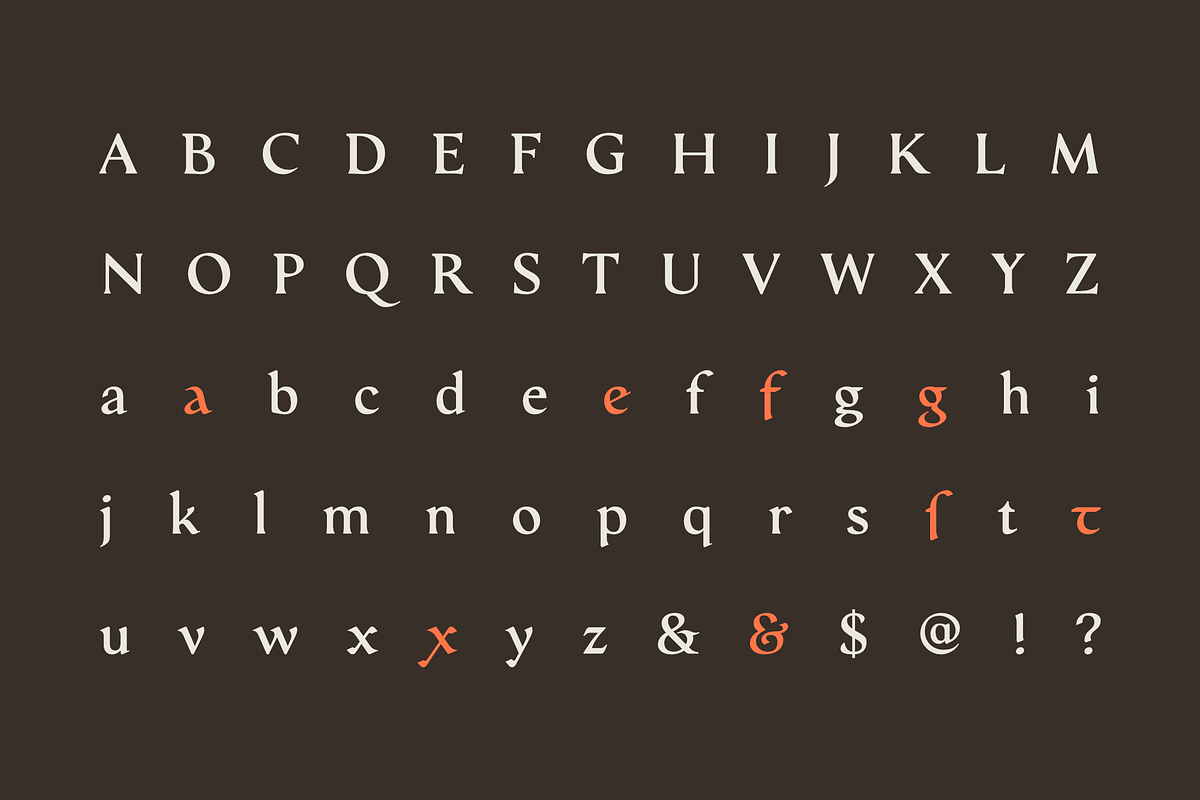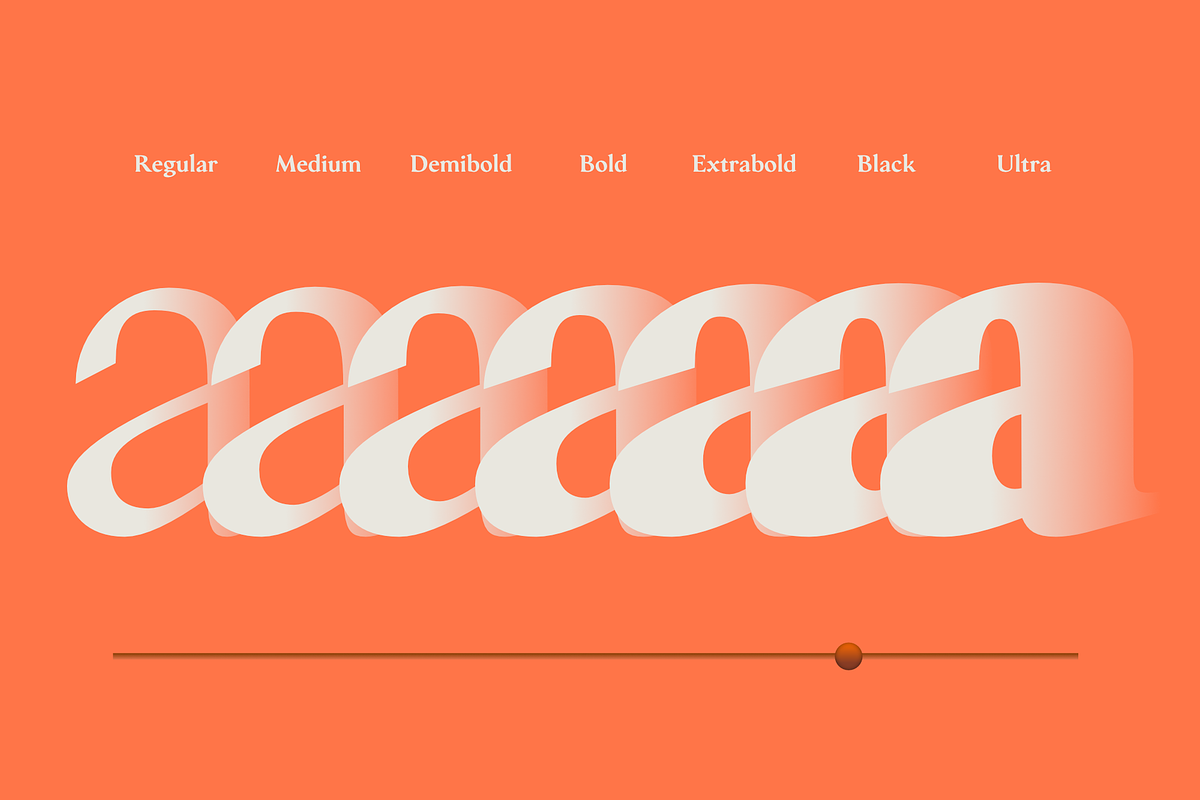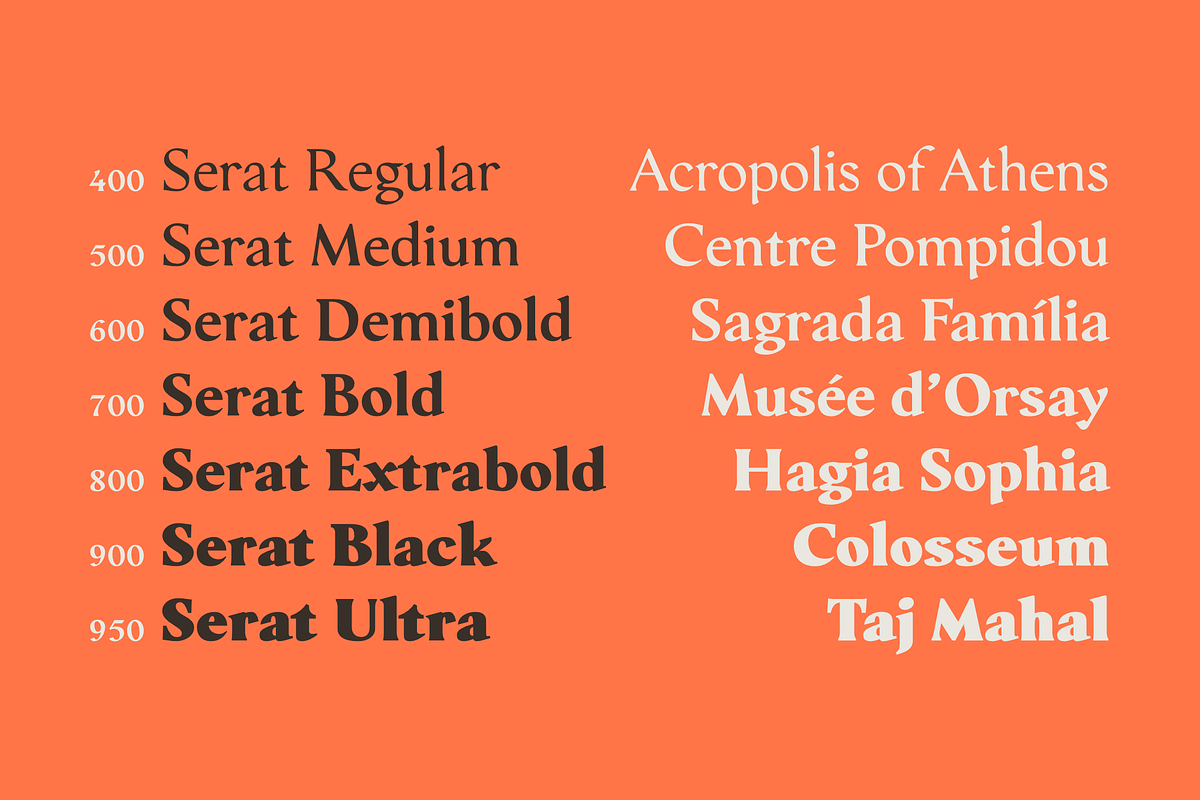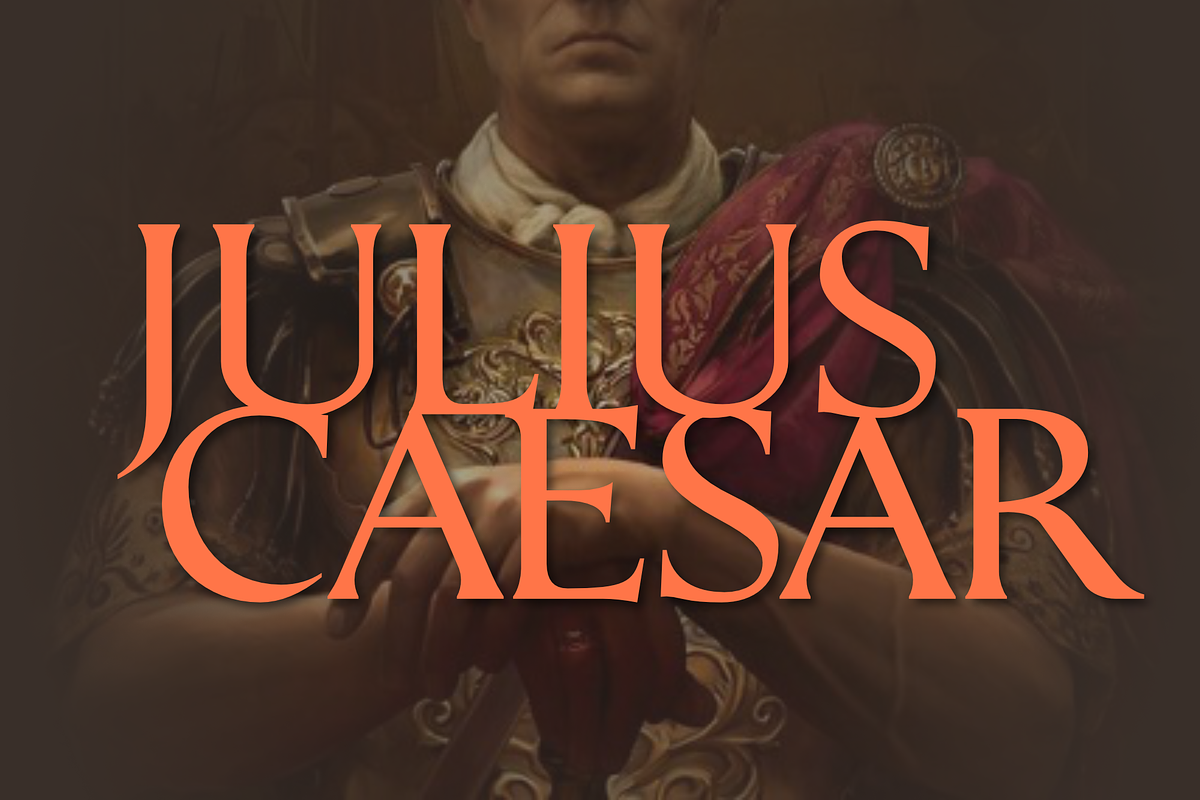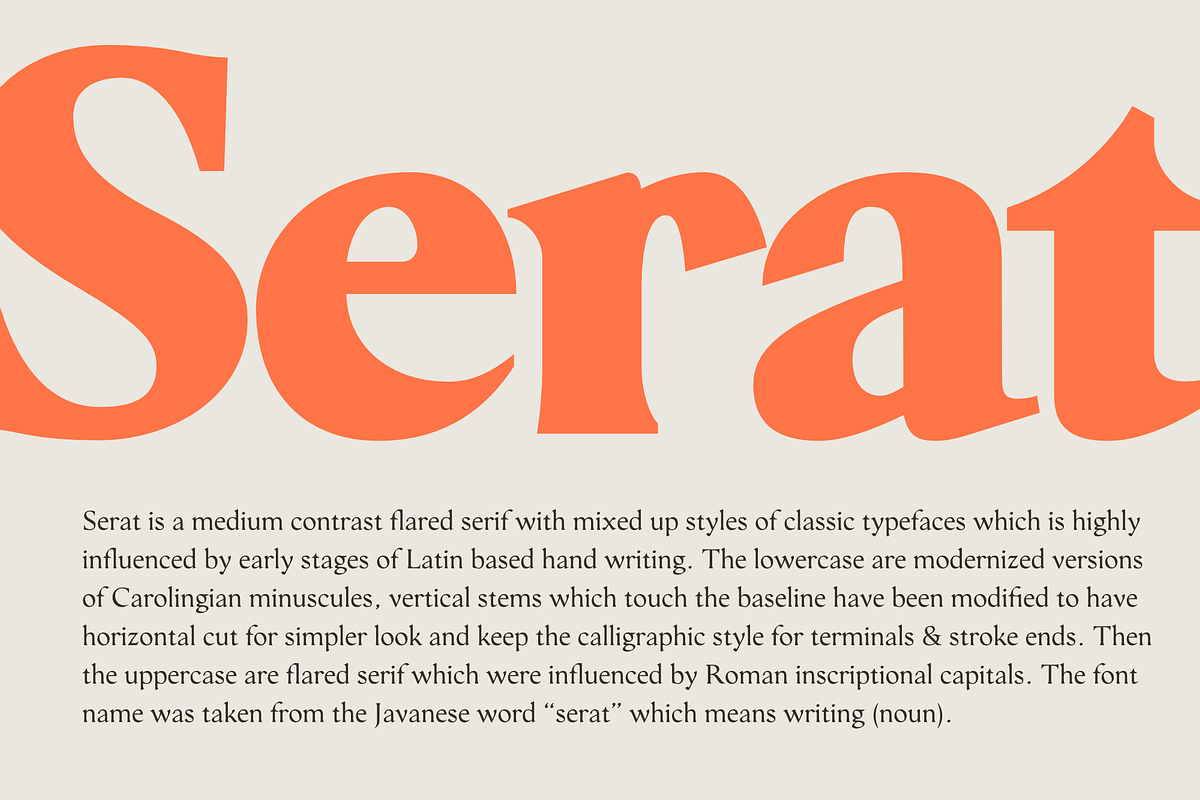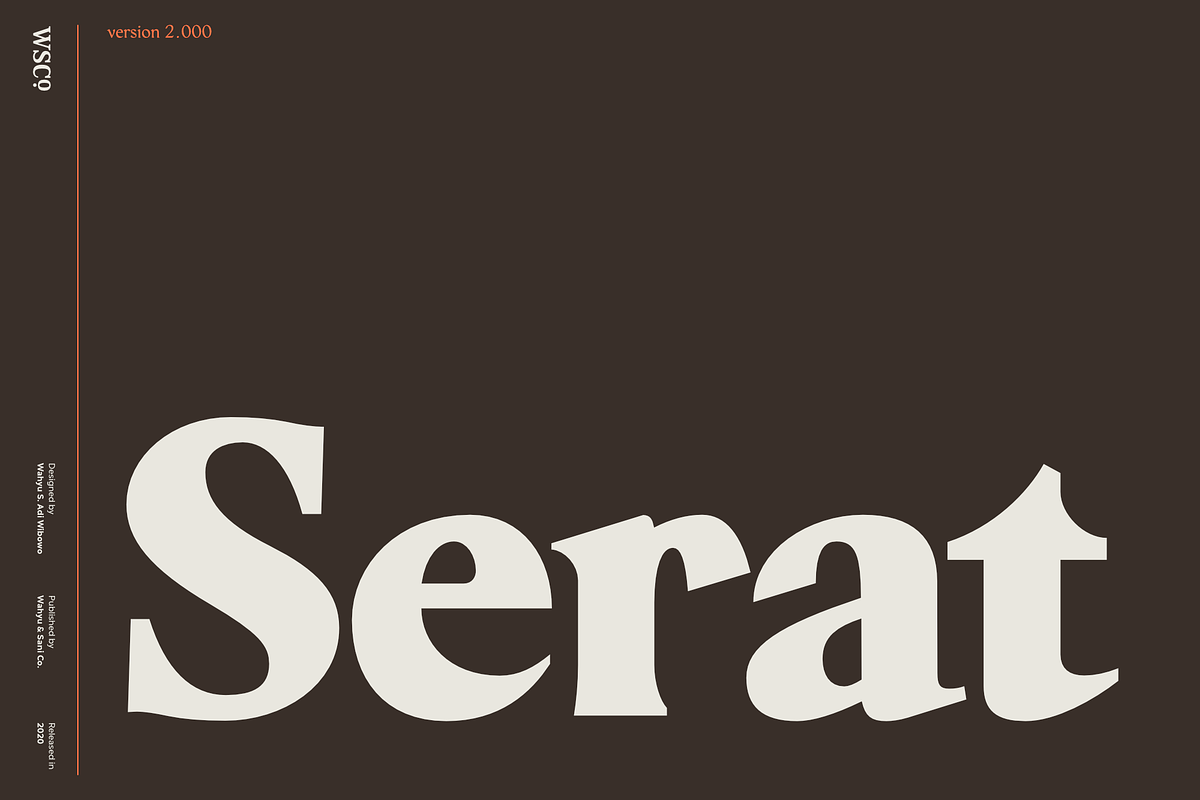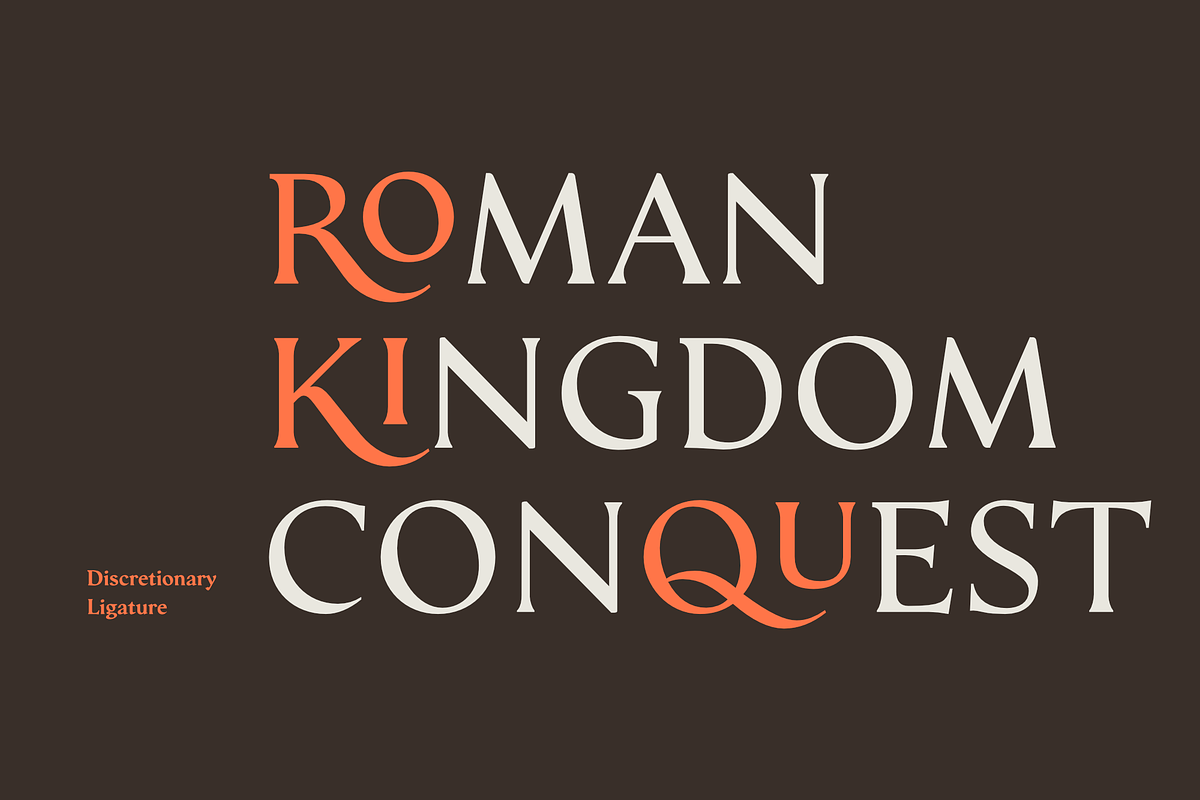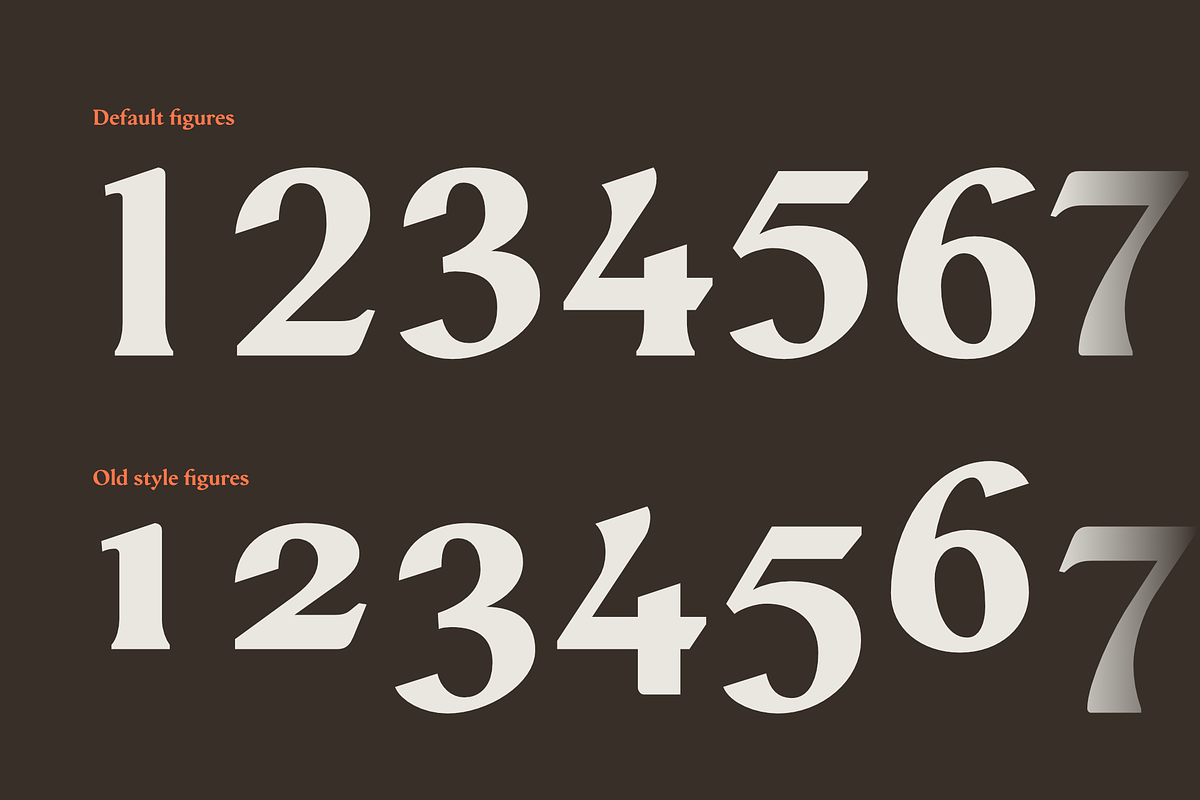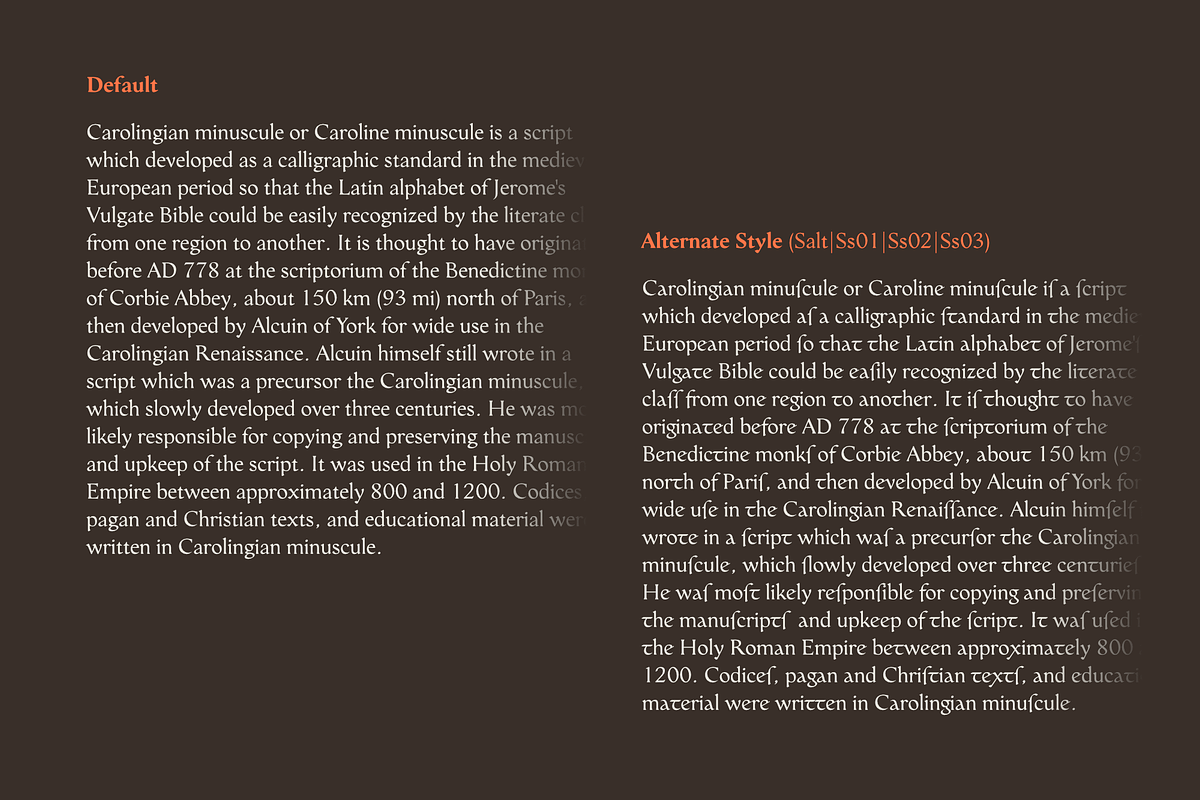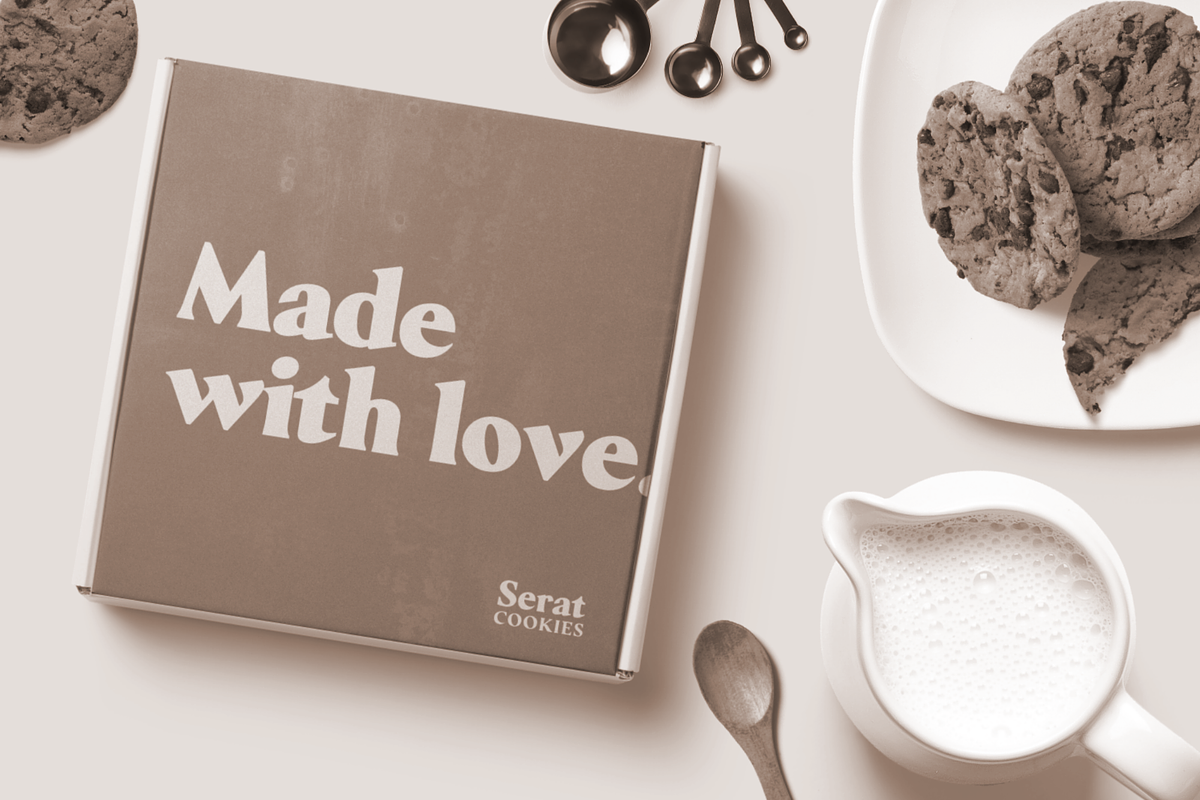
Serat | Flared Serif Family
Serat is a medium contrast flared serif with mixed up styles of classic typefaces which is highly influenced by early stages of Latin based hand writing. The lowercase are modernized versions of Carolingian minuscules, vertical stems which touch the baseline have been modified to have horizontal cut for simpler look and keep the calligraphic style for terminals & stroke ends. Then the uppercase are flared serif which were influenced by Roman inscriptional capitals.
The font name was taken from the Javanese word "serat" which means writing (noun). It comes with some unique features, such as:
- Carolingian style alternate for some letters (a,e,f,g,t), also comes with separated stylistic set for long 's', and long left leg 'x' and alternative ampersand.
- Discretionary ligatures for all caps titling.
- Standard Ligatures.
- Tabular and Proportional for both Lining and Old-style figure.
- Fraction with Nominator and Denominator.
- Superscript and Subscript for numbers, etc.